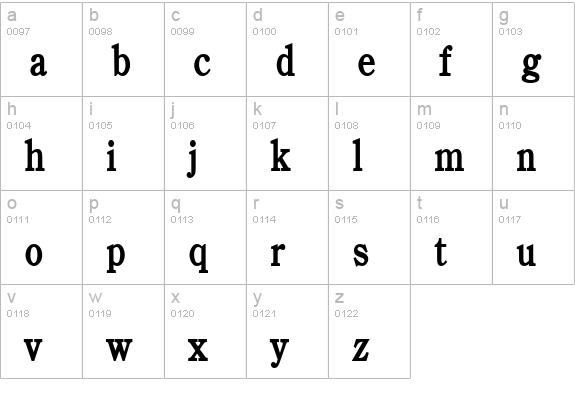
Cento Condensed Bold Font Details
Cento Condensed Bold is a strong, high-contrast, condensed-width variant in the Cento typeface family \xE2\x80\x94 well suited to headlines, attention-grabbing titles, and strong calls-to-action.
Cento Condensed Bold is a modern and versatile typeface that exudes strength and sophistication. With its bold and condensed design, this font commands attention and makes a powerful statement in any project. Perfect for headlines, posters, logos, and branding materials, Cento Condensed Bold is sure to leave a lasting impression. The best part? Cento Condensed Bold is available for free download at FontsMarket.com. Experience the boldness and impact of this font in your designs without having to spend a dime. Don't miss out on this opportunity to elevate your projects with the striking presence of Cento Condensed Bold. Download it now and unleash your creativity!